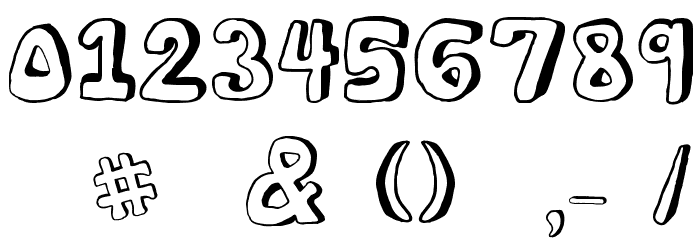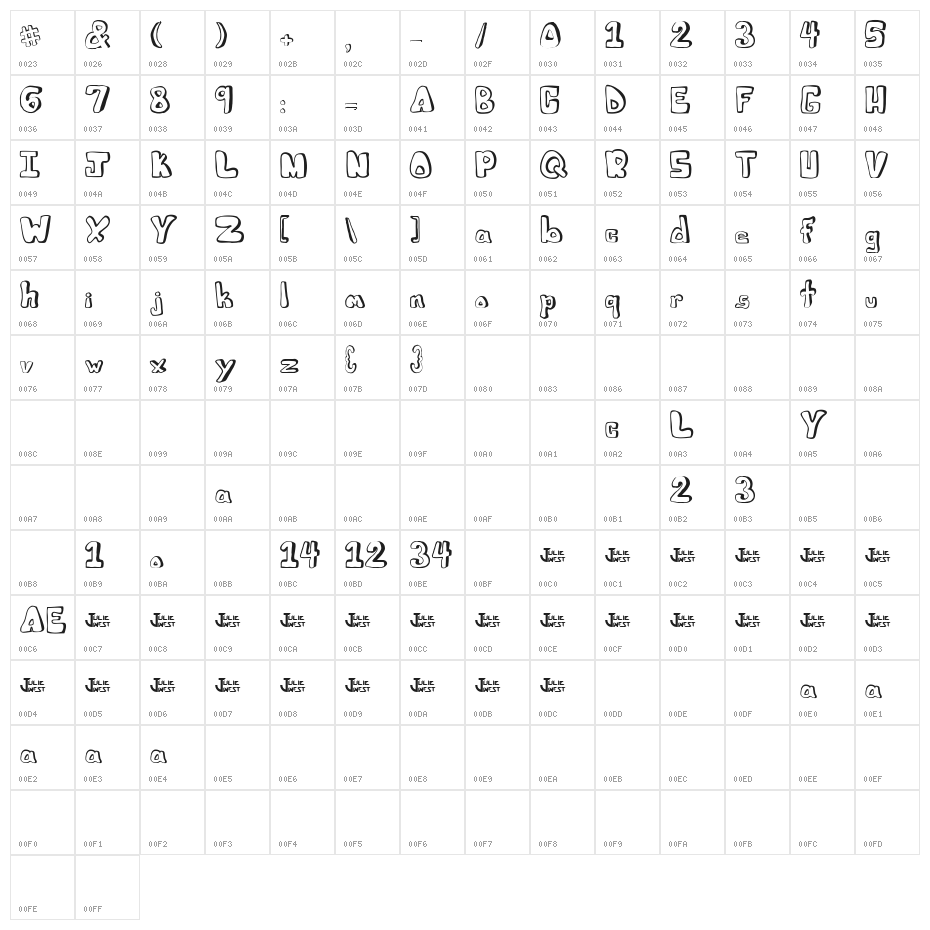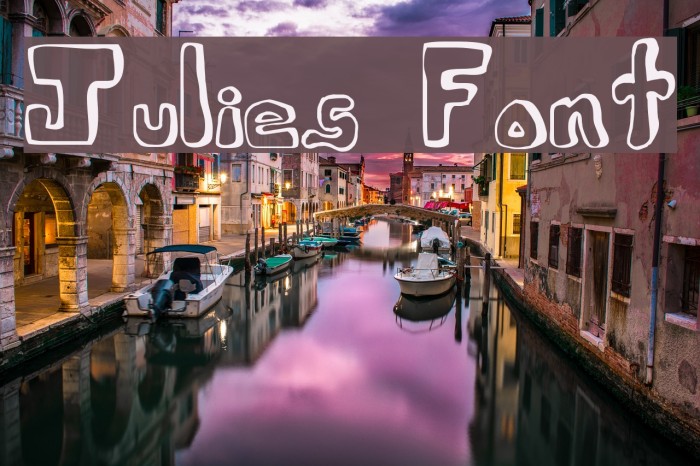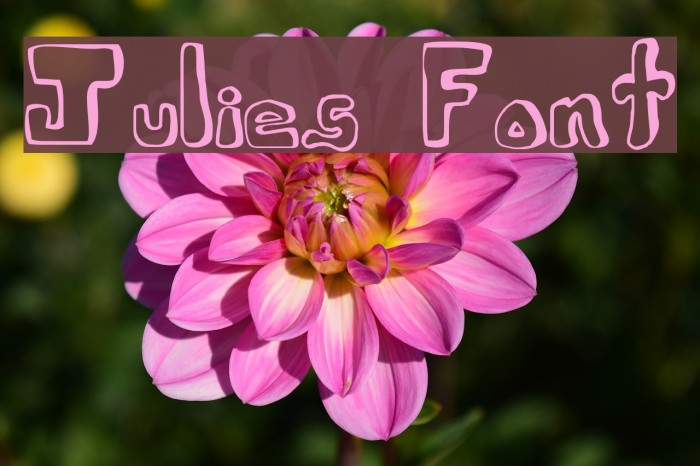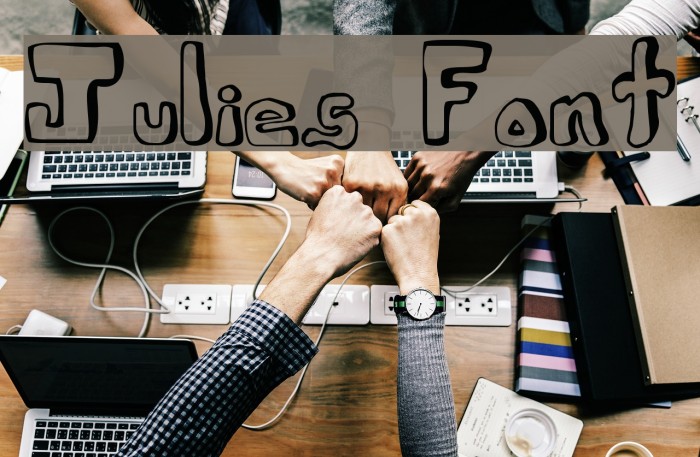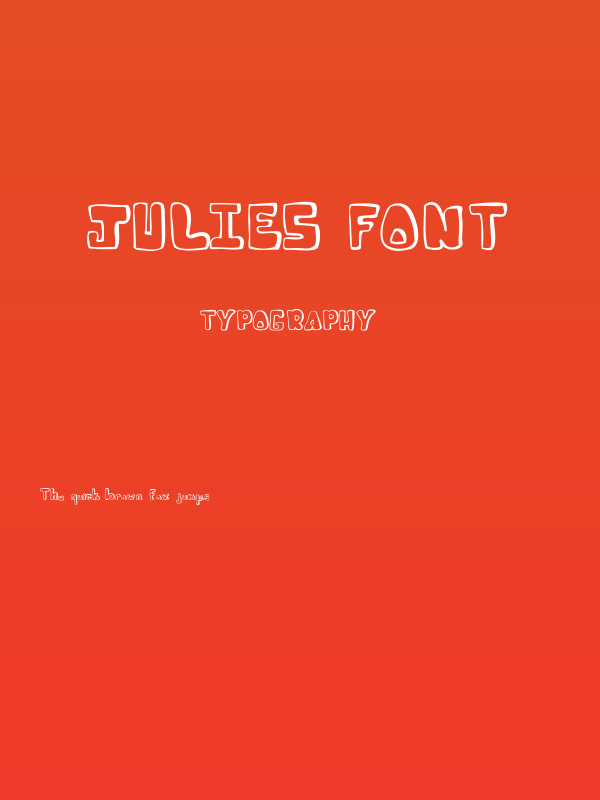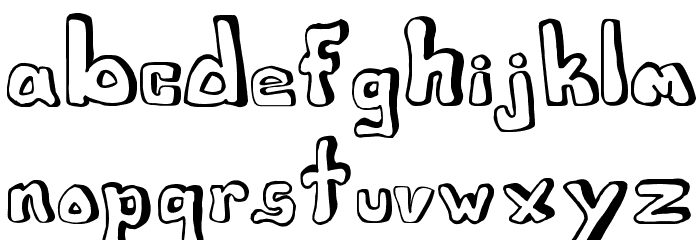
Julies Font Font
Julies Font Description
This playful and whimsical font features bold, rounded characters with a hand-drawn appearance. The letters have a cartoonish style, with uneven lines and a slightly irregular shape that adds to its charm. The uppercase and lowercase letters maintain a consistent style, with the lowercase being slightly smaller and more compact. Numbers and special characters are designed to match the playful aesthetic, making them perfect for creative projects. The font's thick strokes and rounded edges give it a friendly and approachable feel, ideal for children's books, playful branding, or any project that requires a touch of fun.